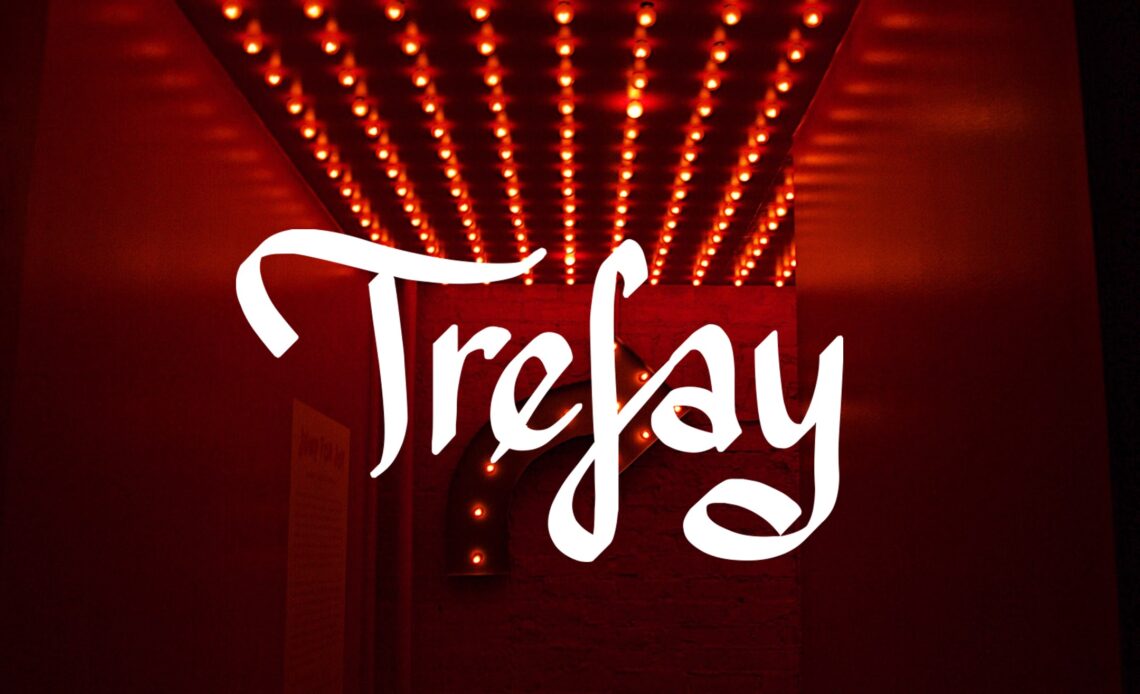
**Trefay Font: The Ultimate Font for Bold and Captivating Designs**
Indulge in the captivating world of Trefay, an exquisite handwritten marker font that breathes life into your creations. Crafted by the esteemed Digital Typeface Studio, this script font exudes an air of sophistication, perfect for making a statement in any design endeavor.
Unleash your creativity with Trefay's versatility. Its fluid strokes and dynamic character add a touch of elegance to titles, flyers, logos, packaging, and corporate branding. Elevate your designs to new heights with Trefay's ability to transform ordinary words into eye-catching masterpieces.
Whether you're a seasoned designer or just starting your journey, Trefay empowers you to make a lasting impact. Its effortless charm captivates audiences, leaving them spellbound by the beauty and originality of your creations.
Experience the allure of Trefay today and unlock a world of design possibilities. Its bold and expressive nature will ignite your imagination, inspiring you to create designs that resonate with your audience. Embrace the power of Trefay and elevate your projects to the next level of excellence.